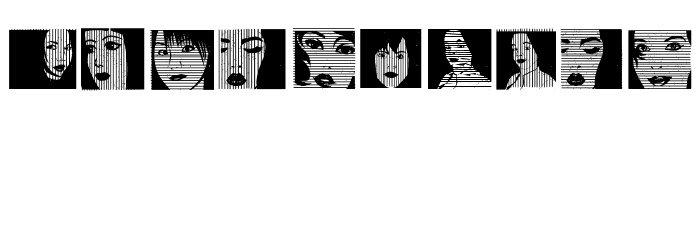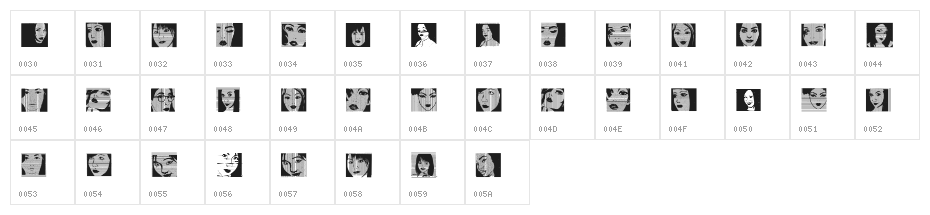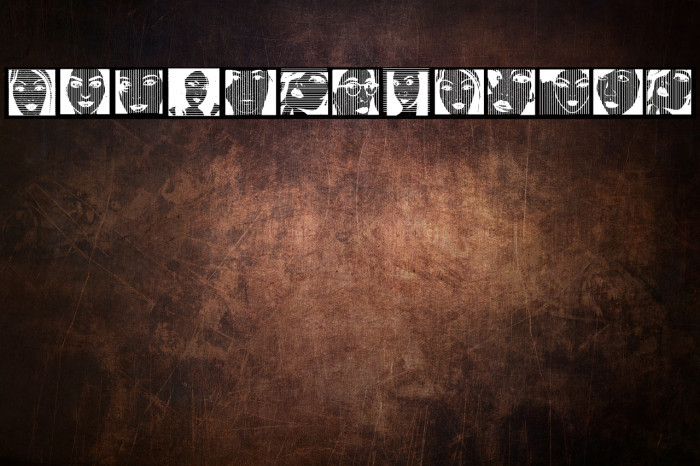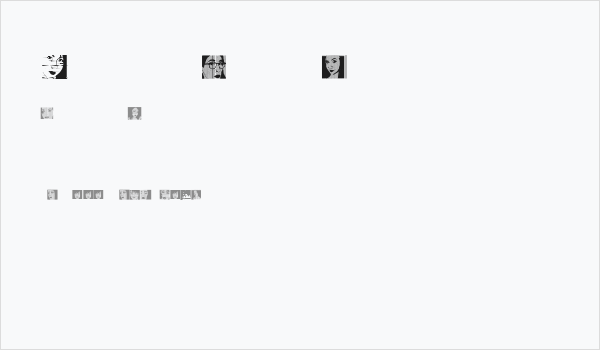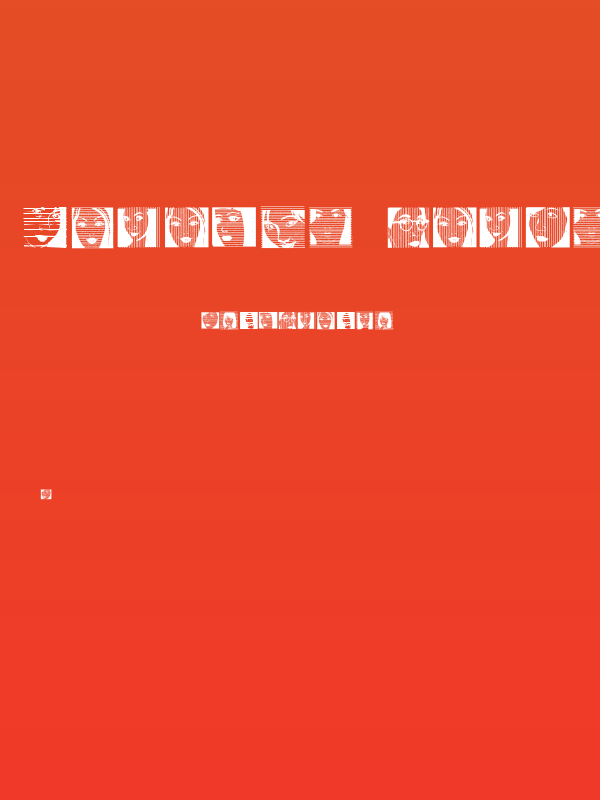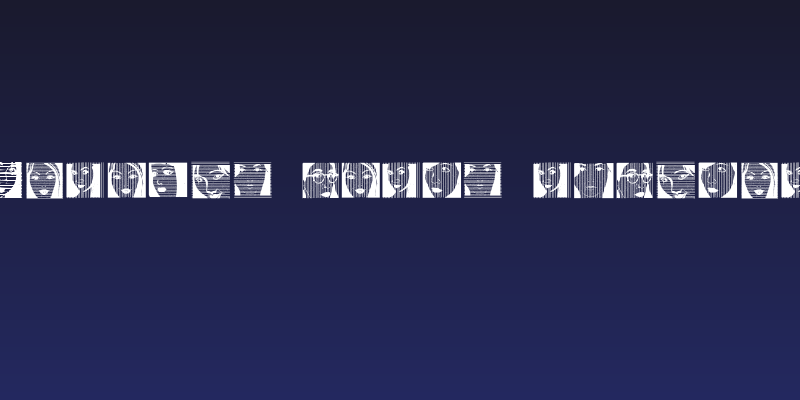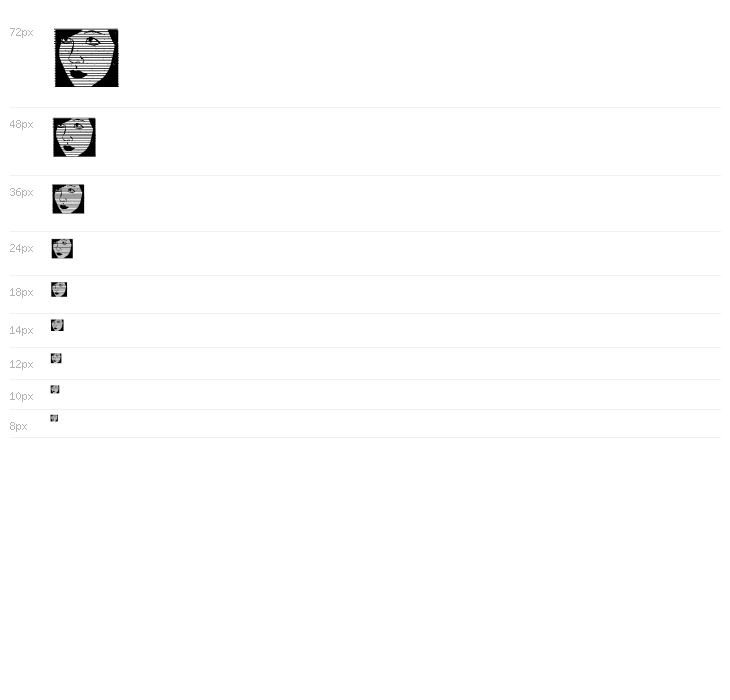
Various Girls Regular Font
Various Girls Regular Description
A decorative display typeface featuring stylized illustrations of various female faces within each character block, rendered in a high-contrast, black-and-white, line-art style.
| Overall Style | Decorative, Artistic, Modern |
| Use Case | Logos, Headlines, Posters, Artistic projects |
| Proposed Projects | Posters, album covers, event flyers, editorial headlines, art projects, zines. |